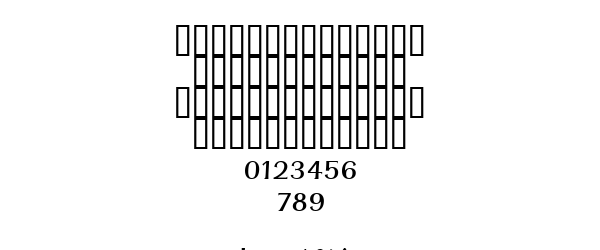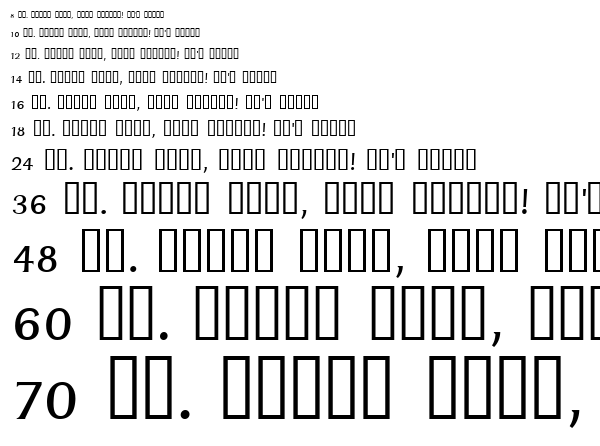
JanaTamilRoman Light
JanaTamil© is the name of a font - a type face in Tamil Script to be used for composing text in Tamil language. It has been designed in Open Type format and as an ‘O.S’ font (operating system font) for Indix, using Bhartiya Shaping Engine. This version is called JanaTamil 0.99.1 and is a non-hinted text face. JanaTamil letters have less contrast in thick & thin strokes and are added with characteristic serifs on sides of vertical and horizontal lines. JanaTamil is recommended to be used for continuous text in Minimum 14pt. size (on screen) and 10pt size (on paper).
its name - JanaTamil by C-DAC Mumbai.JanaTamil has been designed and developed, at C-DAC Mumbai in all respects by Prof. R.K.Joshi (TypeFont Design Director) in association with Mr. Rajith Kumar K. M. (TypeFont Designer) under IndiX2 Project of TDIL, Department of Information Technology, Ministry of communications and Information Technology, Govt. of India.